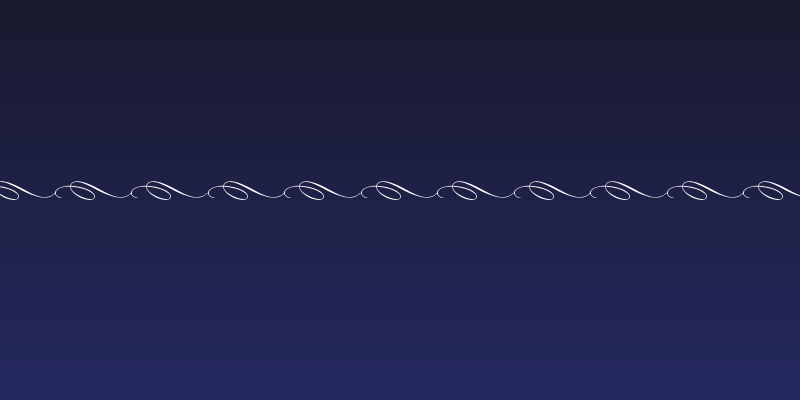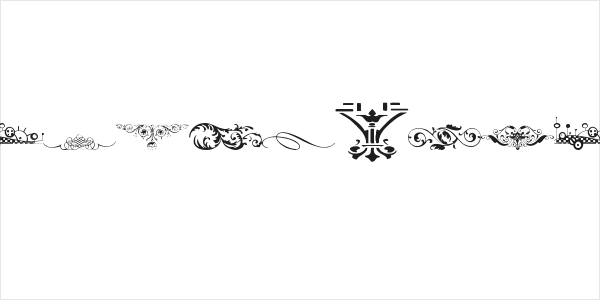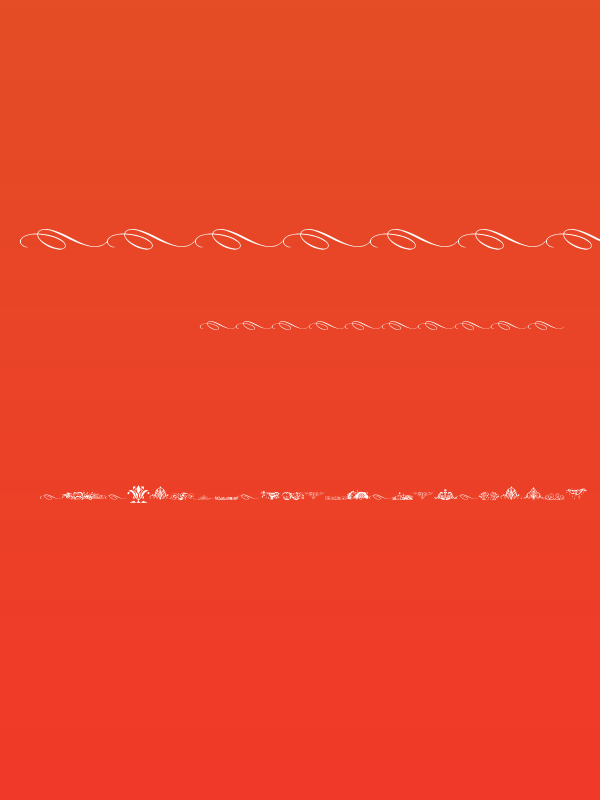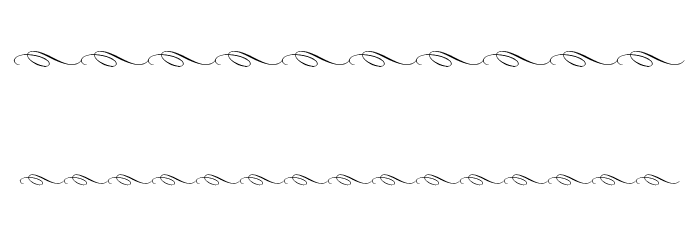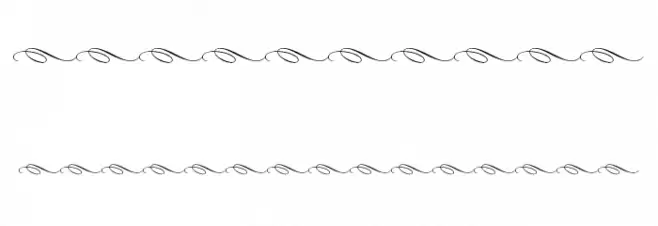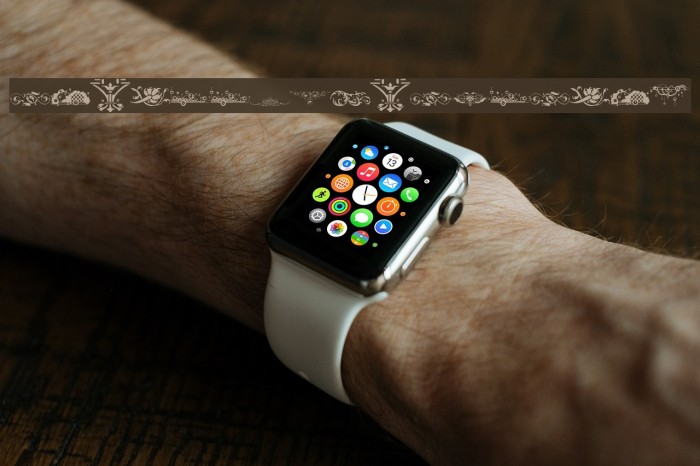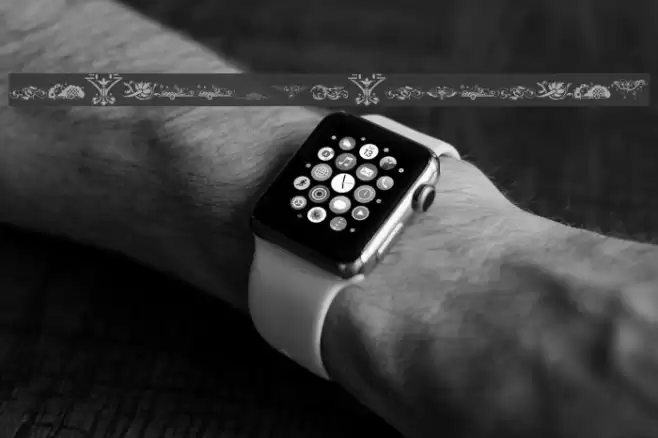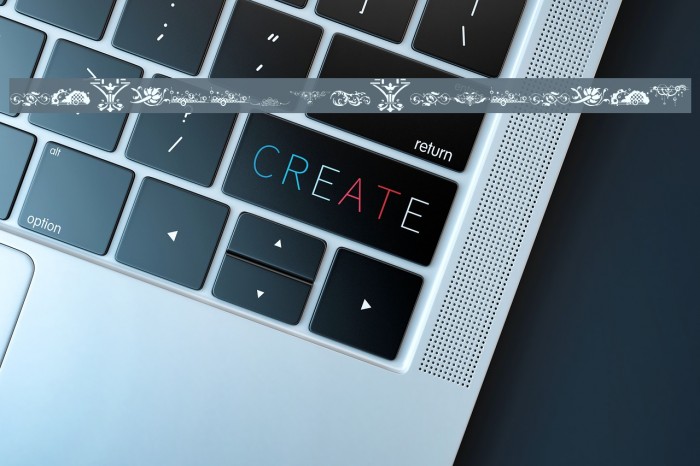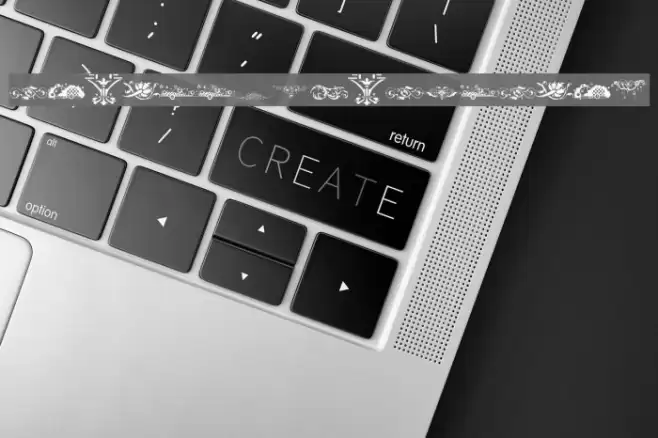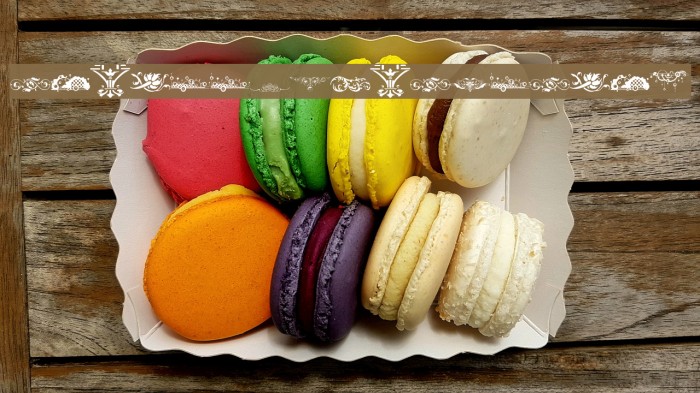
Vintage Decorative Signs 16 Font
Vintage Decorative Signs 16 Description
A highly decorative and ornamental set of vintage-inspired flourishes, borders, and embellishments, featuring intricate swirls, floral motifs, and symmetrical patterns. The designs are detailed and evoke a classic, antique feel, suitable for adding elegance and sophistication to visual projects.
| Overall Style | Vintage, Decorative, Ornamental |
| Use Case | Borders, frames, embellishments, decorative accents |
| Proposed Projects | Wedding invitations, certificates, signage, decorative labels, vintage posters, book covers, menus, branding for luxury or heritage products. |